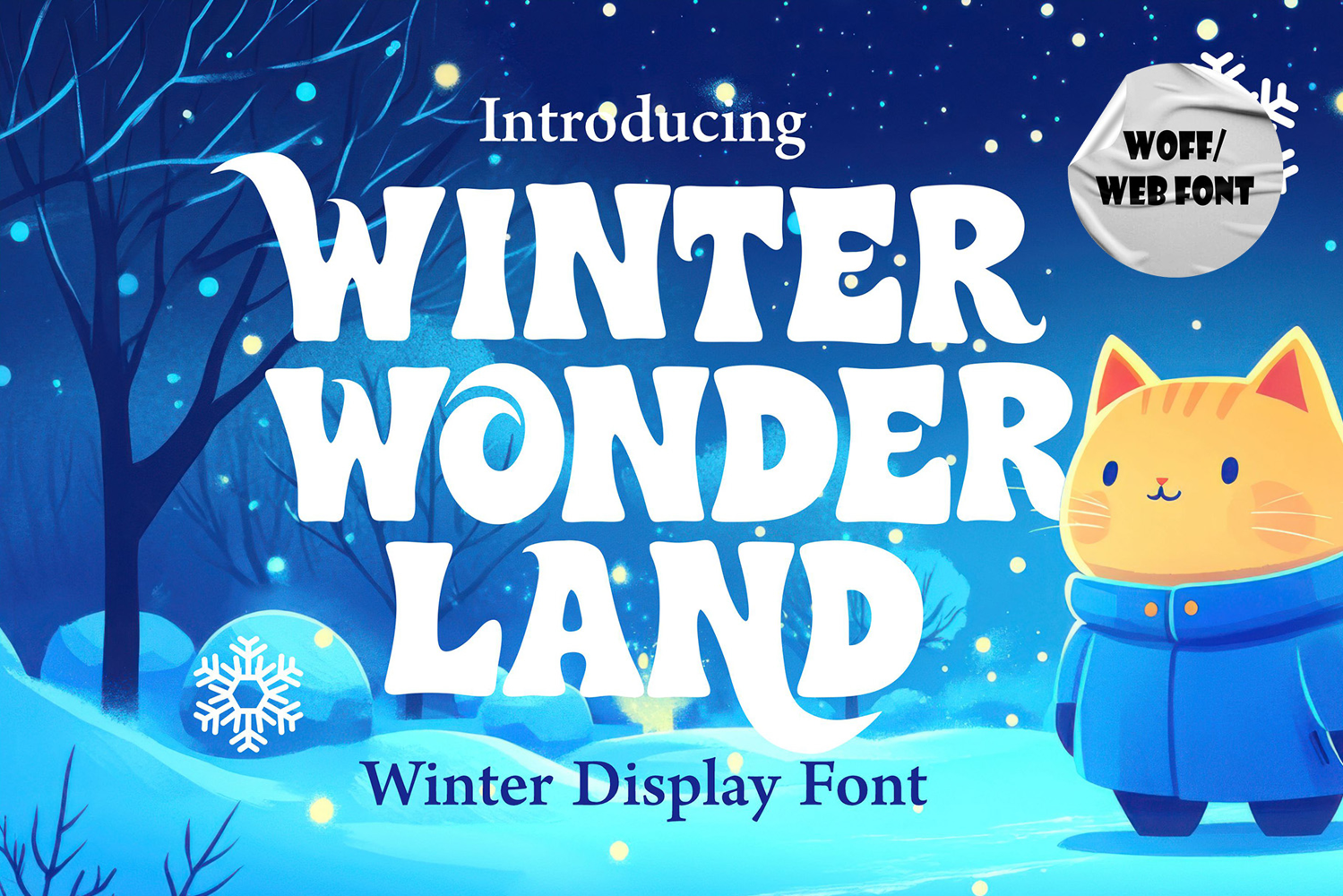
Winter Wonderland | Winter Display Webfont
Winter Wonderland is a winter display webfont that brings snowy magic into the digital world. With playful curves and frosty details, it’s perfect for festive websites, Christmas e-commerce, blogs, digital invitations, and seasonal online campaigns. It includes uppercase, lowercase, numerals, punctuation, and multilingual characters for global reach. Delivered in WOFF format, it ensures fast loading while keeping your design quality intact. Winter Wonderland adds holiday sparkle and cozy warmth to any website.